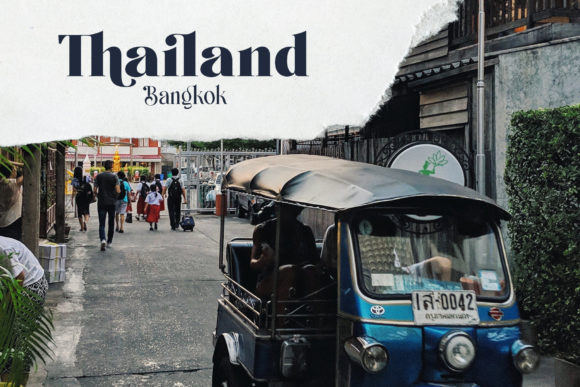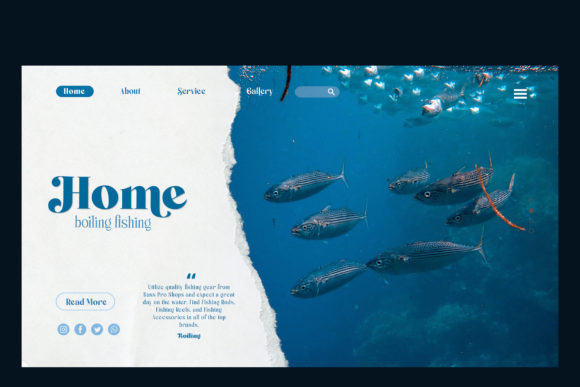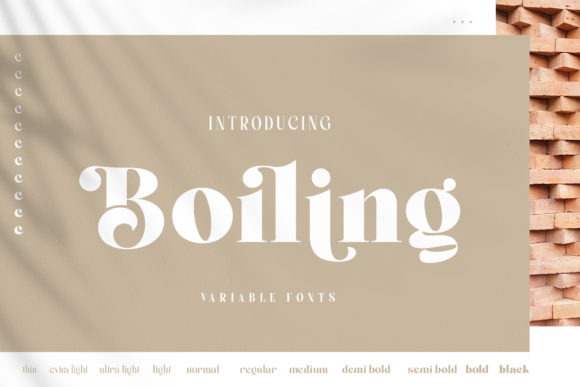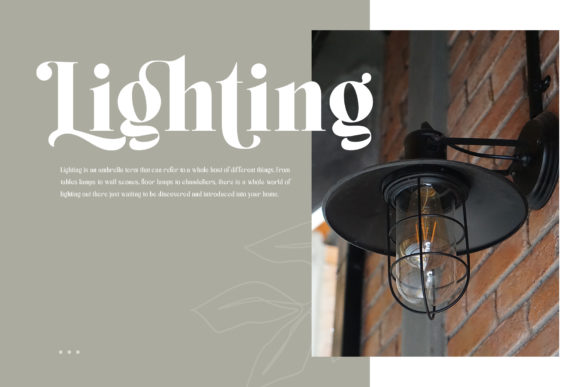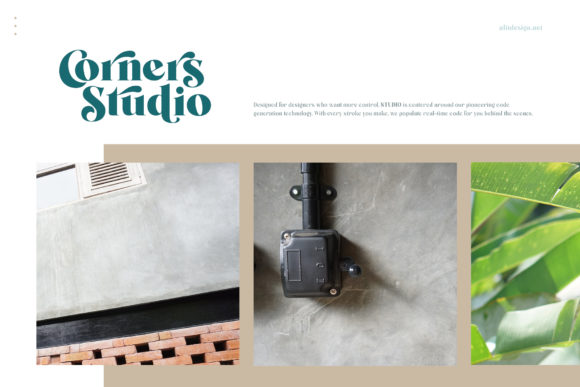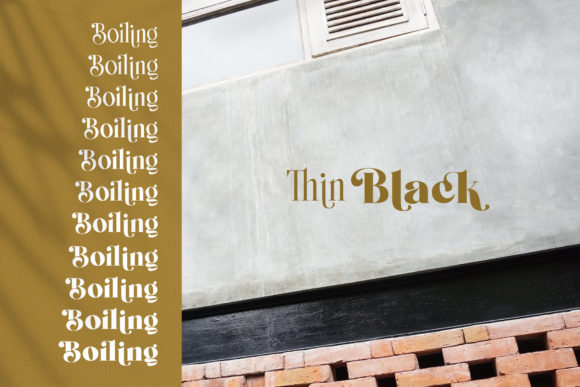
Introducing Boiling Font: The Perfect Blend of Style and Versatility
Are you tired of using the same old fonts in your designs? Look no further than Boiling Font, a bold serif font family that’s sure to become a true favorite. With its casual charm and down-to-earth feel, Boiling is the perfect choice for designers and crafters looking to add a touch of personality to their work.
The Story Behind Boiling Font
Boiling Font is a carefully handcrafted font family that’s designed to be incredibly versatile. Its creators wanted to create a font that would be both readable and eye-catching, making it perfect for use on busy backgrounds or as a standalone headline. Whether you’re working on a graphic design project, crafting a logo, or simply want to add some personality to your digital content, Boiling Font is the perfect choice.
What Makes Boiling Font So Special?
So, what sets Boiling Font apart from other fonts out there? Here are just a few things that make it truly special:
- Bold and Eye-Catching: Boiling Font is a bold serif font that’s designed to grab attention. Its thick lines and dramatic flair make it perfect for headlines, titles, and other applications where you want to make a statement.
- Casual Charm: Despite its boldness, Boiling Font has a casual, down-to-earth feel that’s perfect for designs that need to feel friendly and approachable.
- Highly Readable: One of the things that sets Boiling Font apart is its readability. Even at smaller sizes, the font remains clear and easy to read, making it perfect for body text and other applications where legibility is key.
- Incredibly Versatile: Boiling Font is designed to be versatile, making it perfect for use in a wide range of design applications. Whether you’re working on a logo, a brochure, or a website, Boiling Font is sure to look great.
Using Boiling Font in Your Designs
So, how can you use Boiling Font in your designs? Here are a few ideas to get you started:
- Headlines and Titles: Boiling Font is perfect for headlines and titles, where its boldness and drama can really shine.
- Logos and Branding: The casual charm of Boiling Font makes it a great choice for logos and branding, where you want to create a friendly and approachable feel.
- Body Text: Despite its boldness, Boiling Font is also highly readable, making it a great choice for body text and other applications where legibility is key.
- Backgrounds and Textures: Boiling Font looks great on busy backgrounds and textures, where its boldness and drama can really help it stand out.
Why Designers and Crafters Love Boiling Font
So, why do designers and crafters love Boiling Font? Here are just a few reasons:
- Unique and Eye-Catching: Boiling Font is a unique and eye-catching font that’s sure to help your designs stand out from the crowd.
- Easy to Use: Boiling Font is incredibly easy to use, with a simple and intuitive design that makes it easy to get started.
- Highly Versatile: Boiling Font is designed to be versatile, making it perfect for use in a wide range of design applications.
- Constantly Updated: The creators of Boiling Font are committed to constantly updating and improving the font, ensuring that it stays relevant and effective.
In conclusion, Boiling Font is a bold serif font family that’s sure to become a true favorite among designers and crafters. With its casual charm, high readability, and incredible versatility, Boiling Font is the perfect choice for anyone looking to add a touch of personality to their designs. Whether you’re working on a graphic design project, crafting a logo, or simply want to add some personality to your digital content, Boiling Font is the perfect choice.